A display fonts guide is essential for designers who want to create eye-catching visual designs. Display fonts are special typefaces designed to attract attention and highlight important text such as titles, headlines, or promotional messages.
Unlike body text fonts, display fonts are created to stand out. Designers often use them in posters, social media graphics, branding, advertisements, and website headers. Because display fonts are visually expressive, they help communicate personality and strengthen the overall design.
Understanding how display fonts work is an important skill for designers. In this display fonts guide, we will explore the definition of display fonts, their history, popular types, and practical tips for using them effectively.
What Are Display Fonts?
Display fonts are typefaces specifically designed for large sizes and attention-grabbing text. These fonts are usually used in headlines, titles, logos, and marketing materials rather than long paragraphs.
The main purpose of display fonts is to create visual impact. Designers use them when they want text to become a strong design element instead of just a tool for reading.
Because of their decorative and expressive nature, display fonts are often used in:
- Posters and advertisements
- Social media graphics
- Website banners
- Logo design
- Packaging design
In many creative projects, display fonts help convey emotion, style, and brand identity.
The History of Display Fonts
The development of display fonts has a long history connected to advertising and printing technology. Understanding this history is an important part of any display fonts guide.
Early Printing Era
In the early days of printing, most fonts were designed for books and long texts. These fonts prioritized readability rather than visual decoration. However, as printing technology developed, designers began experimenting with more expressive typefaces.
The Rise of Advertising Typography
During the 19th century, advertising became more common. Businesses needed bold typography that could attract attention in posters and storefront signs. This period saw the birth of many decorative fonts. Type designers created larger, more stylized typefaces specifically for advertisements and headlines. These early experimental fonts eventually became what we now call display fonts.
Digital Typography Era
With the rise of digital design tools and the internet, display fonts became even more popular. Designers could now experiment with thousands of typefaces for branding, social media, and digital marketing.
Today, display fonts are widely used in graphic design, branding, web design, and creative marketing campaigns.
Types of Display Fonts
A good display fonts guide should introduce designers to the different categories of display fonts. Each type creates a different visual impression and design mood.
Bold Display Fonts
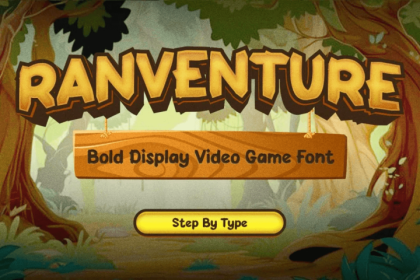
Bold display fonts are designed to be powerful and attention-grabbing. These fonts often have thick strokes and strong shapes.
Designers commonly use bold display fonts for:
- Promotional graphics
- Headlines and titles
- Marketing campaigns
- Social media posts
Because they are highly visible, bold fonts are effective for messages that need immediate attention.
Modern Experimental Fonts
Modern display fonts often feature unusual shapes, geometric forms, or creative letter structures.
These fonts are popular in:
- Technology branding
- Creative agencies
- Digital art projects
- Modern website design
Experimental fonts help create a bold and innovative brand identity.
Retro Display Fonts
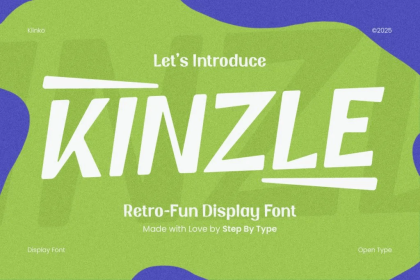
Retro display fonts evoke a nostalgic style inspired by past design eras, such as the 70s and 80s, or by vintage poster typography.
These fonts are popular for:
- Vintage branding
- Lifestyle content
- Creative campaigns
- Fashion and music designs
Retro display fonts add personality and uniqueness to visual designs.
Script Display Fonts
Script display fonts imitate handwriting or calligraphy. These fonts often feel elegant, expressive, and personal.
Designers use script display fonts for:
- Wedding branding
- Beauty products
- Inspirational quotes
- Boutique branding
However, script fonts should be used carefully to maintain readability.
Tips for Using Display Fonts Effectively
Learning how to use display fonts correctly is an important part of any display fonts guide. Even the best fonts can fail if they are used incorrectly.
1. Use Display Fonts for Headlines
Display fonts work best with large text, such as titles or headlines. Because they are decorative, they should not be used for long paragraphs or body text. A common design approach is to combine a display font with a simple body font to maintain readability.
2. Maintain Readability
Even though display fonts are decorative, readability should always remain a priority. Avoid fonts that are too complex or difficult to read, especially for digital designs viewed on mobile devices. Clear typography ensures your message can be understood quickly.
3. Limit the Number of Fonts
Using too many fonts in one design can make the layout look messy and unprofessional.
Most designers recommend using:
- One display font for titles
- One supporting font for body text
This approach creates visual harmony while maintaining design clarity.
4. Match Fonts With Brand Personality
Typography should align with the brand identity.
For example:
- Bold fonts → energetic brands
- Elegant script fonts → luxury brands
- Geometric fonts → modern brands
When typography reflects the brand personality, the overall design feels more cohesive.
Recommended articles
If you’re looking for fonts for social media content, you can read this article: Display Fonts for Social Media Design.
You can also read 10 Typography Tips for Eye-Catching Snack Packaging for additional reference.
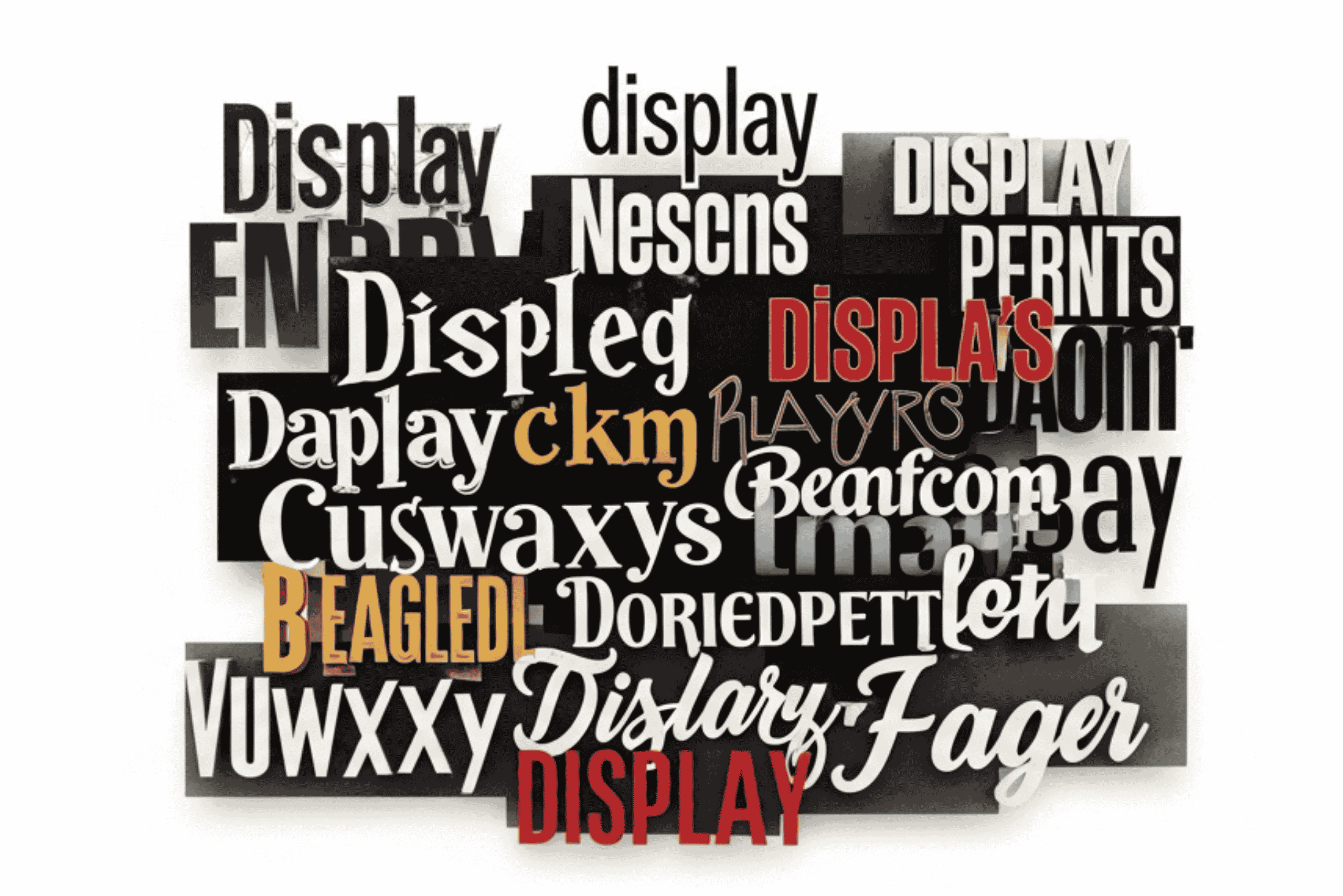
Conclusion
This display fonts guide highlights how important display fonts are in modern design. From their origins in early advertising typography to their widespread use in digital design today, display fonts have become essential tools for creative communication.
Designers use display fonts to capture attention, communicate brand personality, and create memorable visual experiences. By understanding the history, types, and best practices of display fonts, designers can make smarter typography choices.
Whether you are designing posters, social media graphics, or brand identities, the right display font can transform a simple layout into a powerful visual message.
Mastering display fonts is, therefore, an important skill for every designer who wants to create impactful and professional designs.